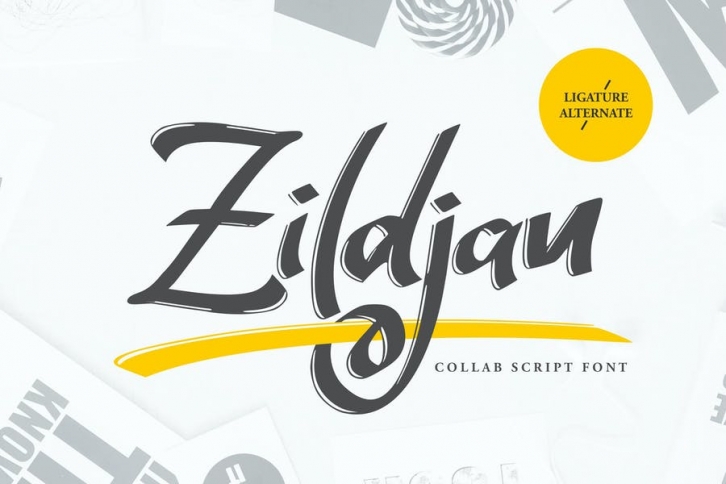
Zildjan | Script Brush Font with a calligraphy style, So beautiful on invitation like greeting cards, branding materials, business cards, quotes, posters, and more!
- Alternates and Ligatures
- Punctional